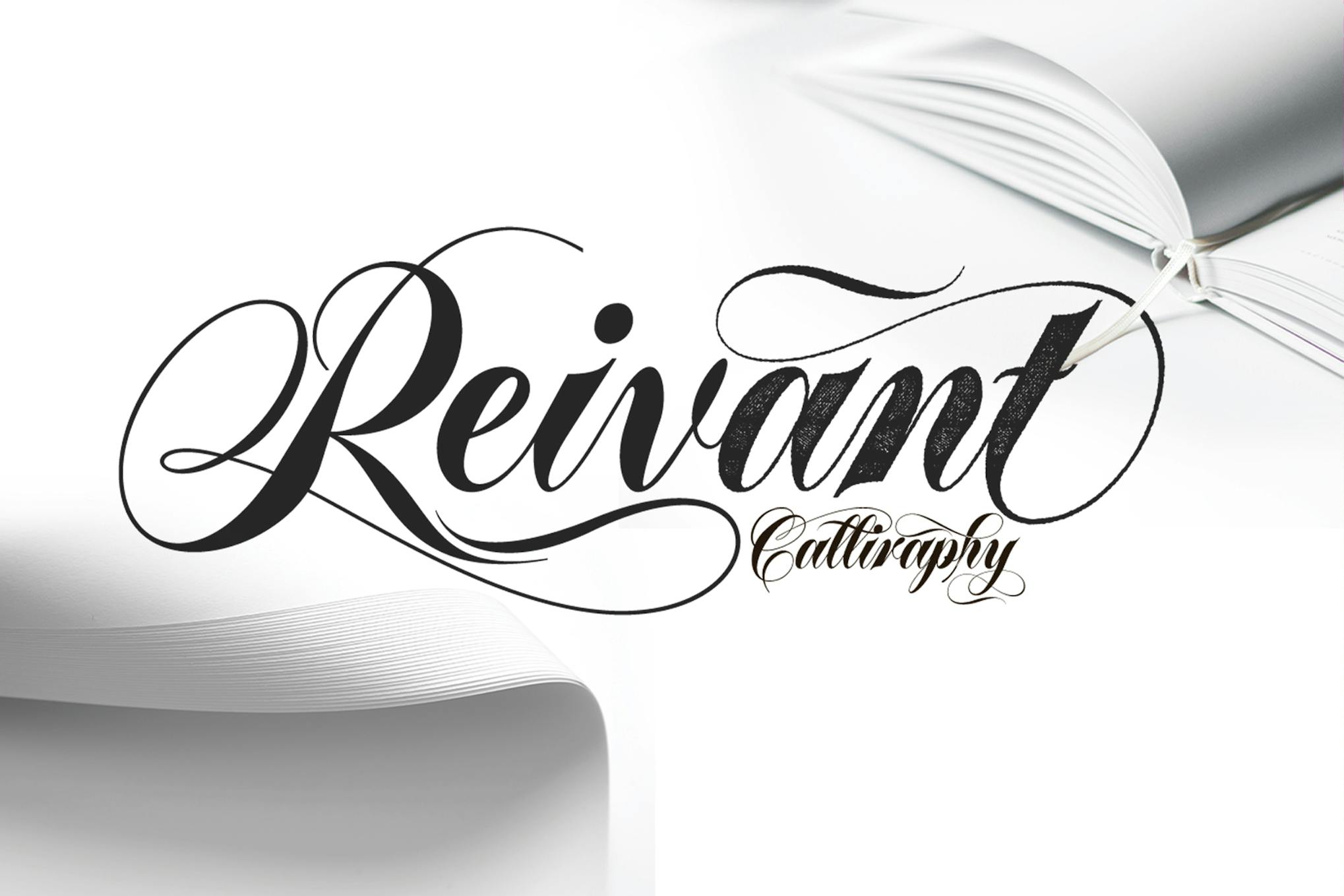
Reivant Wedding Calligraphy Font
The Reivant Wedding Calligraphy Font excels in artistic design applications including calligraphic wedding invitations, artistic bridal branding, elegant ceremony logos, handcrafted product packaging, artistic business cards, calligraphy portfolios, handwritten greeting cards, artistic social media graphics, calligraphic event signage, and artistic marketing materials. Its calligraphy style makes it perfect for projects requiring artistic elegance that communicates craftsmanship and establishes artistic brand positioning with audiences seeking calligraphic wedding experiences and handcrafted sophistication.
What makes the Reivant Wedding Calligraphy Font truly exciting is its exceptional ability to capture the artistic beauty and handcrafted elegance of traditional calligraphy through masterfully crafted letterforms. The font features flowing, calligraphic strokes with artistic flourishes and handcrafted proportions that create a distinctly artistic appearance. Each character displays remarkable attention to calligraphic detail with artistic curves, handcrafted connections, and elegant spacing that give text a beautifully artistic, hand-lettered quality. The font's calligraphic character and artistic rhythm create an atmosphere of handcrafted elegance while maintaining artistic sophistication and wedding authenticity.
The Reivant Wedding Calligraphy Font family typically includes regular weight with extensive character coverage, featuring uppercase and lowercase letters, numerals, punctuation marks, and international characters. The typeface often incorporates stylistic alternates, contextual ligatures, and calligraphic swashes that enhance its signature artistry. These additional elements provide designers with creative flexibility to customize text appearance and achieve more natural-looking calligraphic handwriting that reflects the font's artistic and handcrafted character.
This artistic signature font distinguishes itself through its remarkable balance of calligraphic charm and sophisticated elegance. Unlike digital or mechanical fonts that lack artistic appeal, Reivant Wedding Calligraphy Font embraces the power of handcrafted design to create authentic connections with calligraphy-loving wedding audiences. The font's artistic character makes it essential for artistic wedding planners, calligraphy brands, and handcrafted celebration businesses where creating artistic wedding experiences and calligraphic memories is fundamental to success in artistic wedding markets.